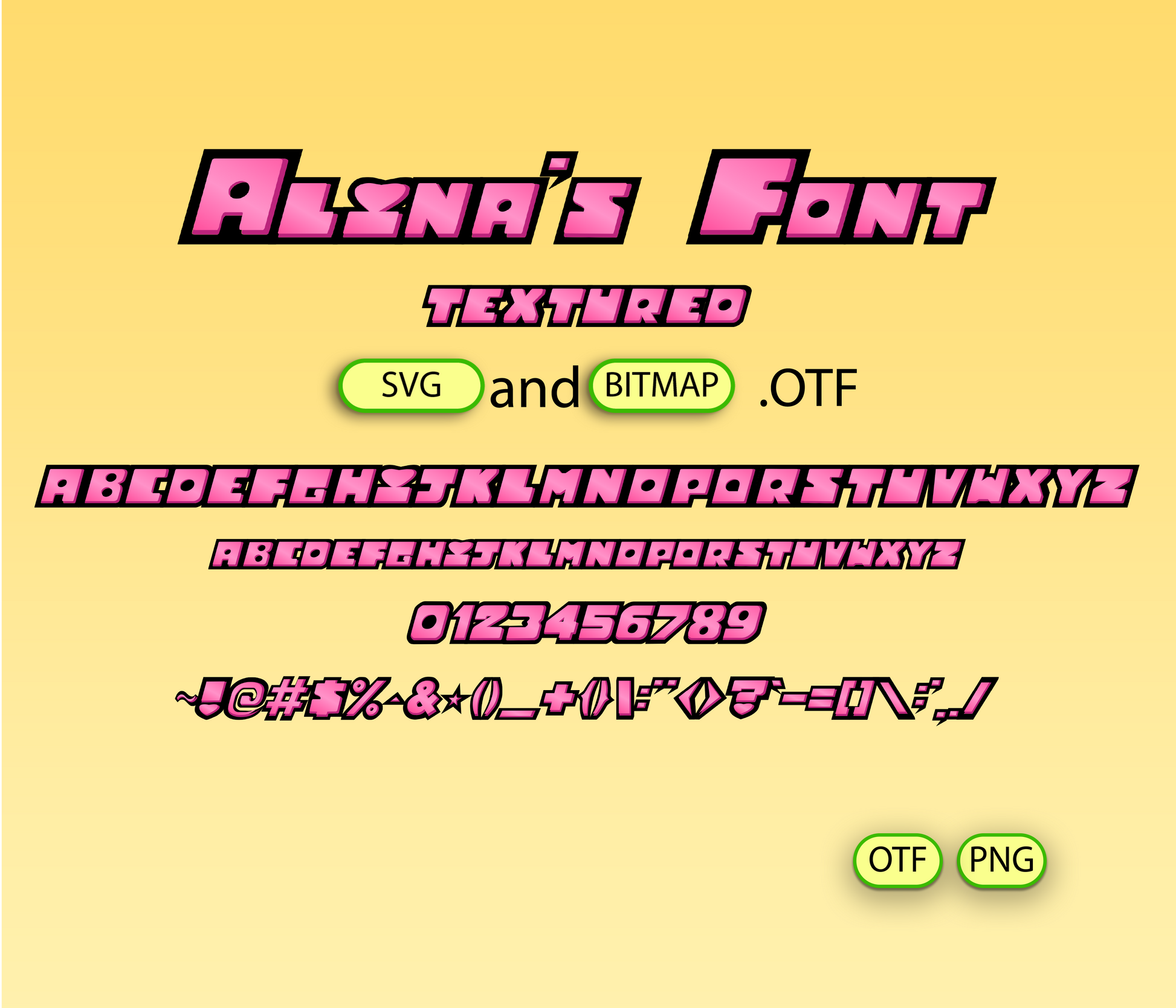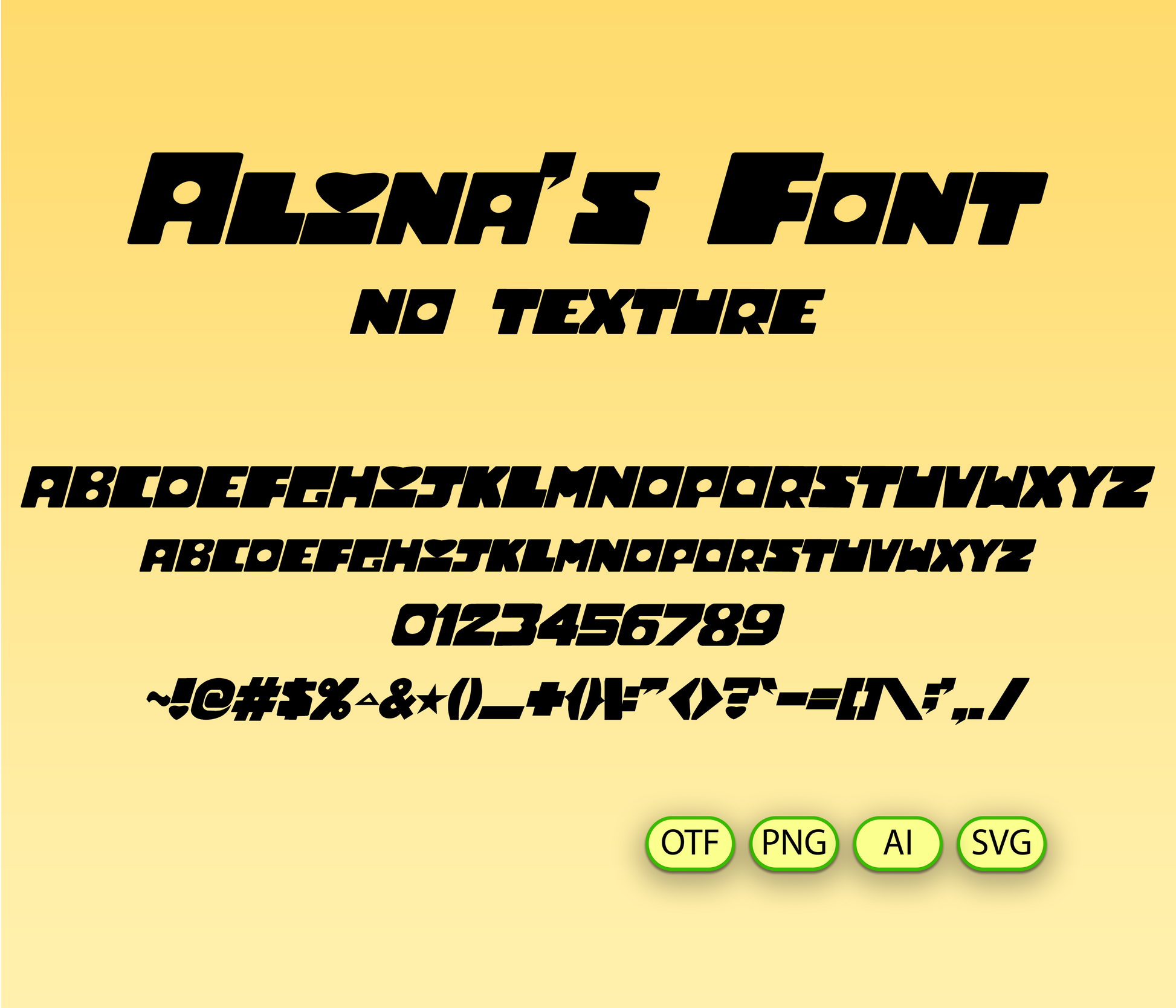
Mighty Hero Trio Cartoon Font Textured
Mighty Hero Trio Cartoon Action Style
Soar into the exhilarating universe of tiny champions and vibrant justice-fighting with our Mighty Hero Trio Cartoon Action font, embodying the essence of pint-sized protector adventures and animated superhero excitement. Perfect for animated action creators, small hero designers, cartoon adventure storytellers, and creative professionals, this font delivers the courageously spirited yet charmingly animated, boldly adventurous atmosphere of miniature champion tales to your projects. Craft action-bursting invitations, tiny hero merchandise, or digital content with the fearlessly determined, vibrantly animated energy of small superhero stories.
Our Mighty Hero Trio Cartoon Action font features dynamic, animation-inspired letterforms and energetically cartoon characters reflecting the courageously exciting yet adorable aesthetic of tiny champion scenarios. Ideal for: